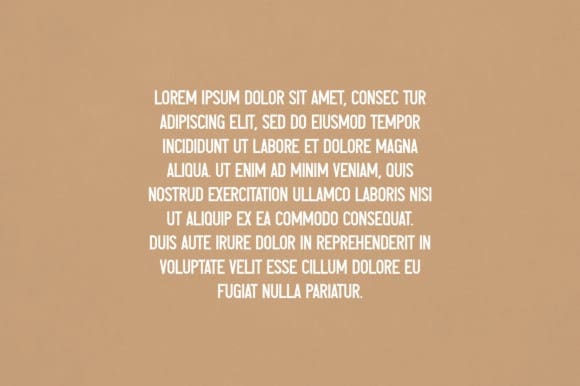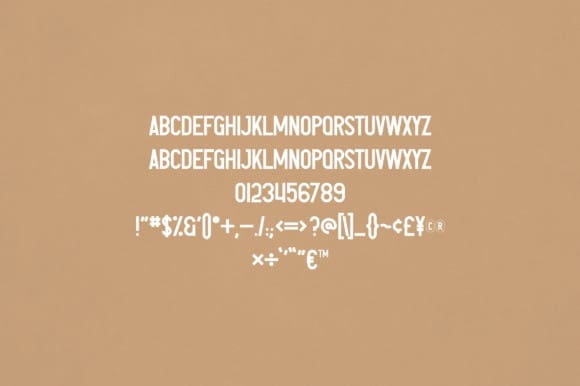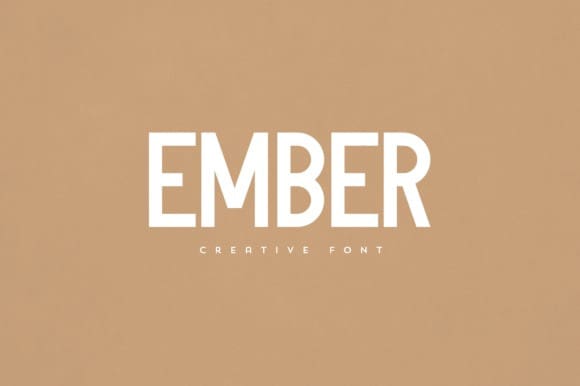
Ember Font
Ember Font is an elegant and versatile display font that will make your typography truly unique! It will enchant every logo, branding, headline, or plain text!